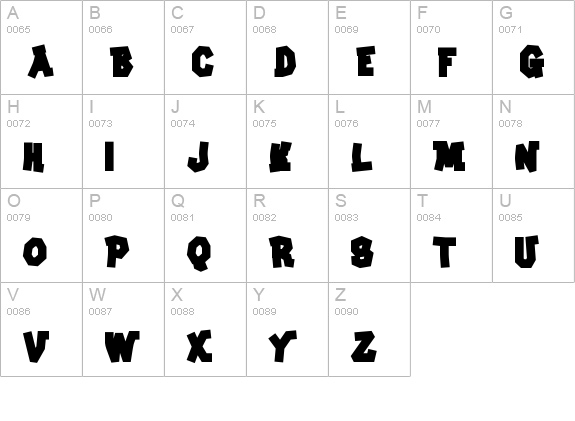
Clunker AOE Bold is a strong, high-contrast variant in the Clunker typeface family \xE2\x80\x94 well suited to headlines, attention-grabbing titles, and strong calls-to-action.
Clunker AOE Bold font is a striking display typeface that exudes a sense of industrial strength and ruggedness. Its bold and angular design makes it perfect for headlines, posters, and branding projects that require a powerful and impactful look. The Clunker AOE Bold font offers a unique blend of edginess and modernity, making it a versatile choice for a wide range of design applications. Best of all, Clunker AOE Bold font is available for free download at FontsMarket.com, making it easily accessible for designers and creatives looking to add a bold and dynamic touch to their projects. Don't miss out on the opportunity to enhance your designs with the bold and commanding presence of Clunker AOE Bold font. Download it today and unleash your creativity!